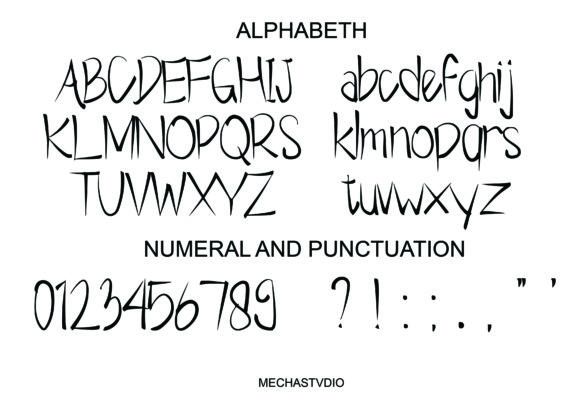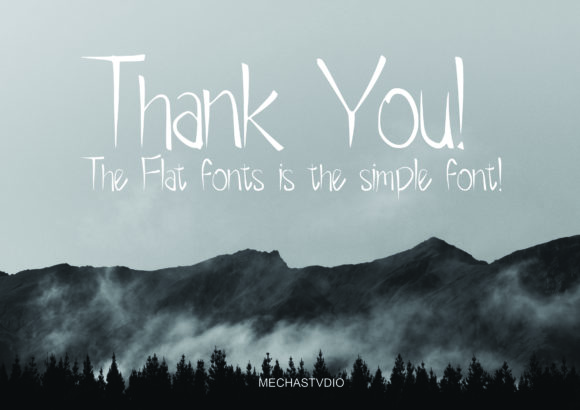
Introduction to Flat! Font
Flat.
is a Japanese styled and cool display font It has a cool and modern look, perfect for logos, branding, invitations, stationery, wedding designs, social media posts, and more.
Key Features of Flat! Font